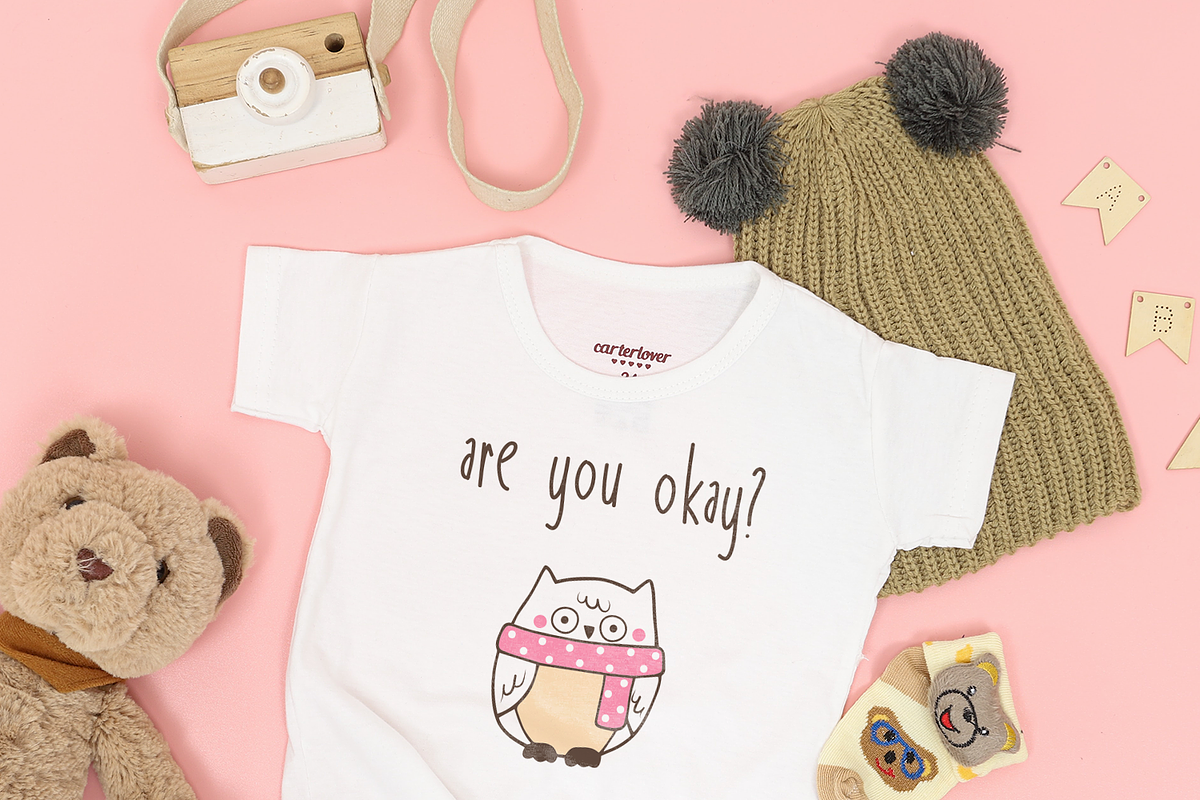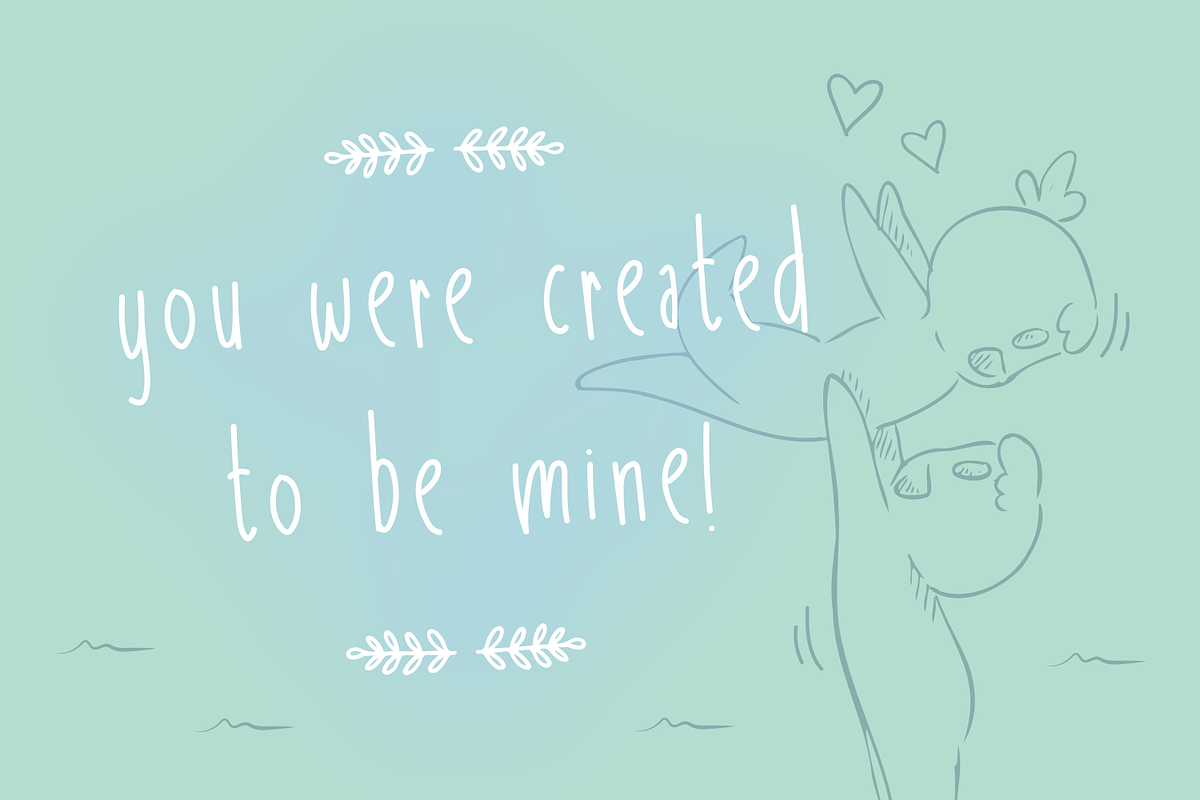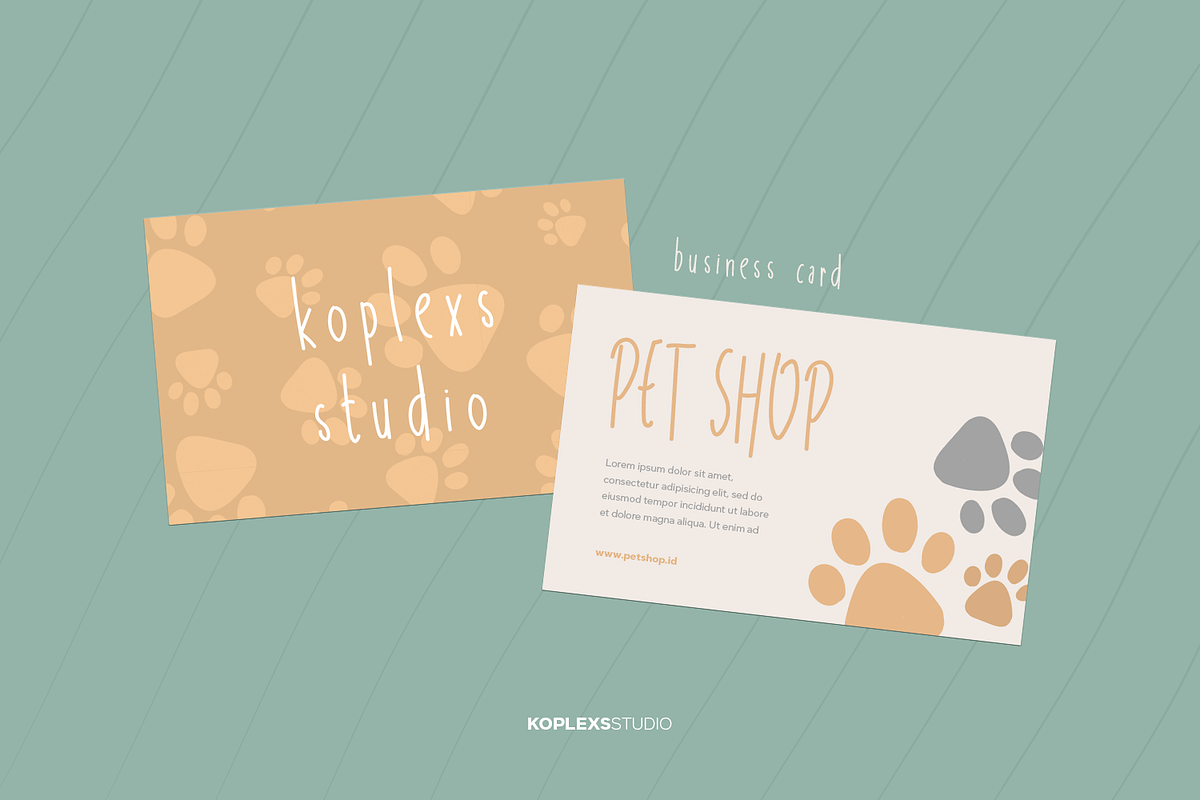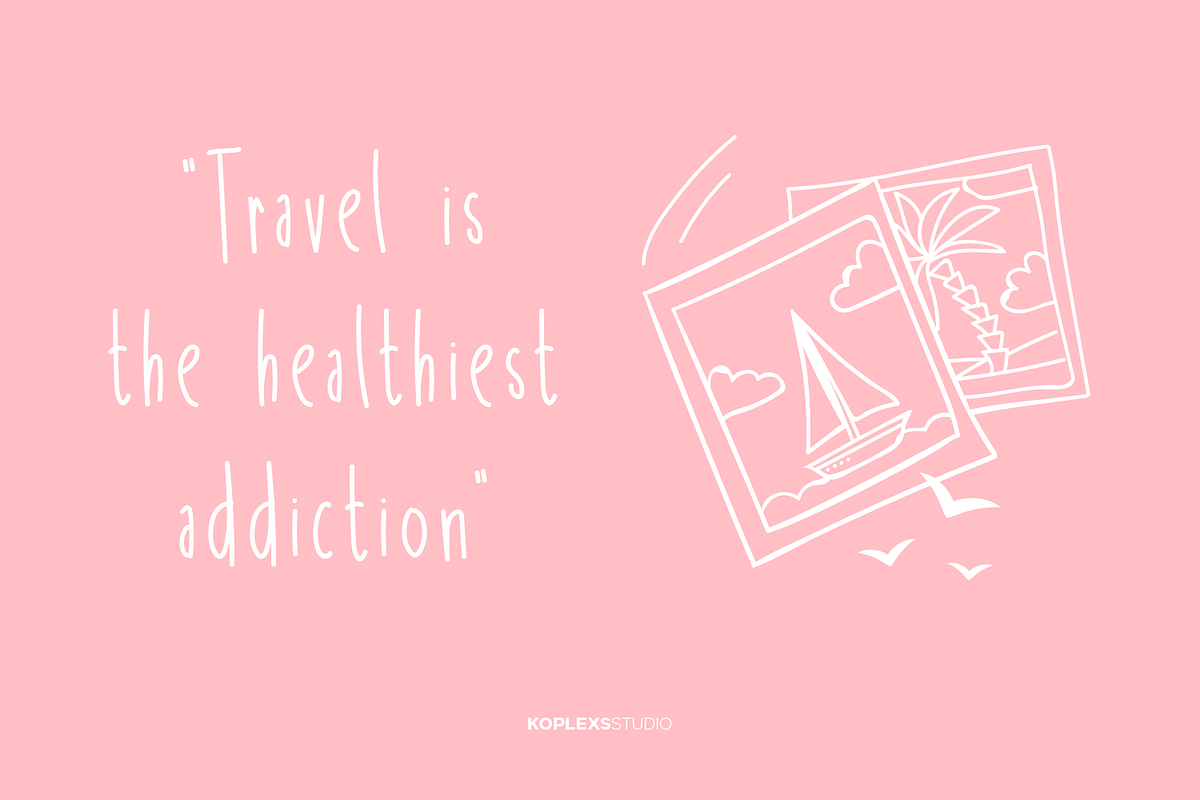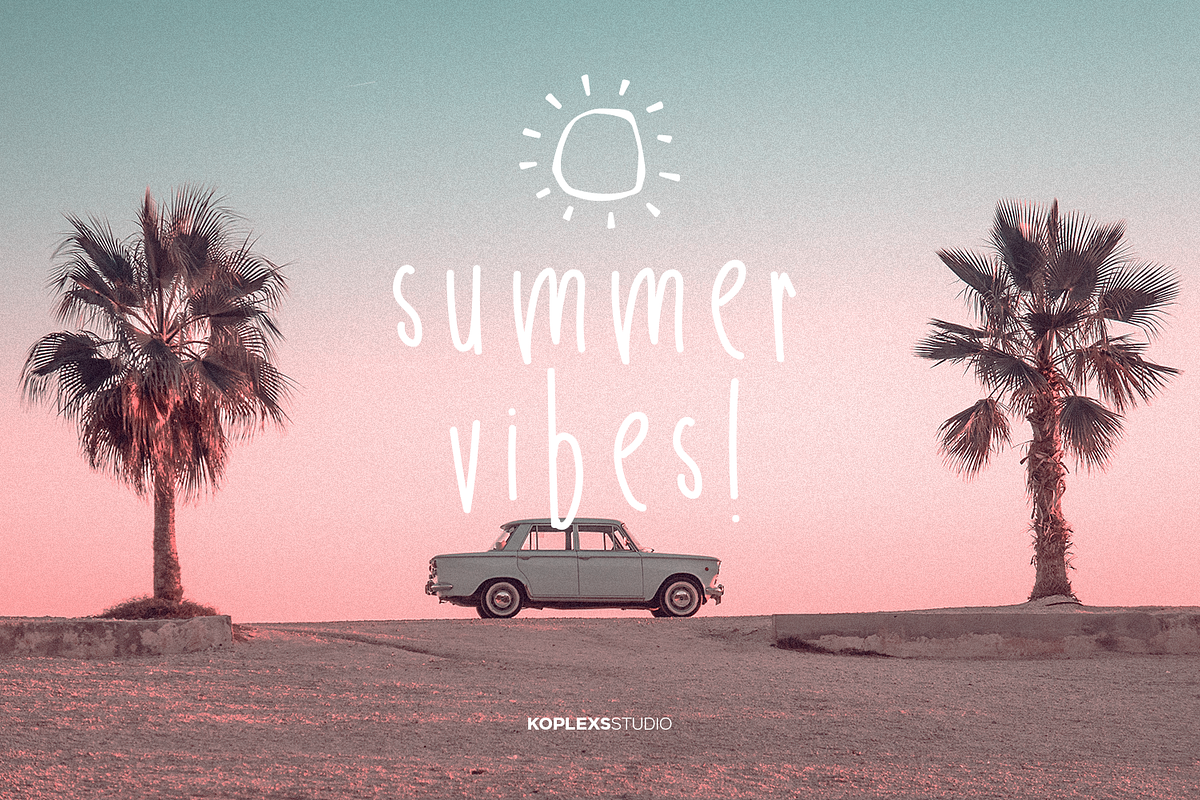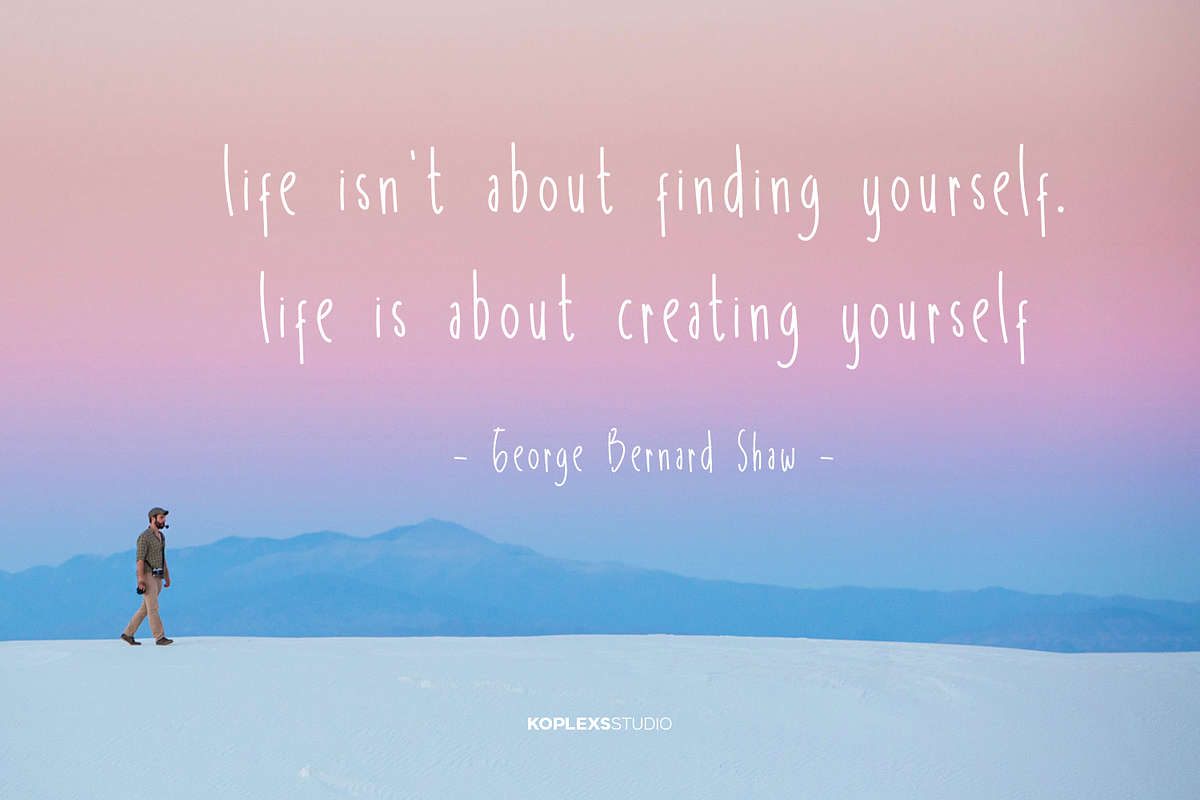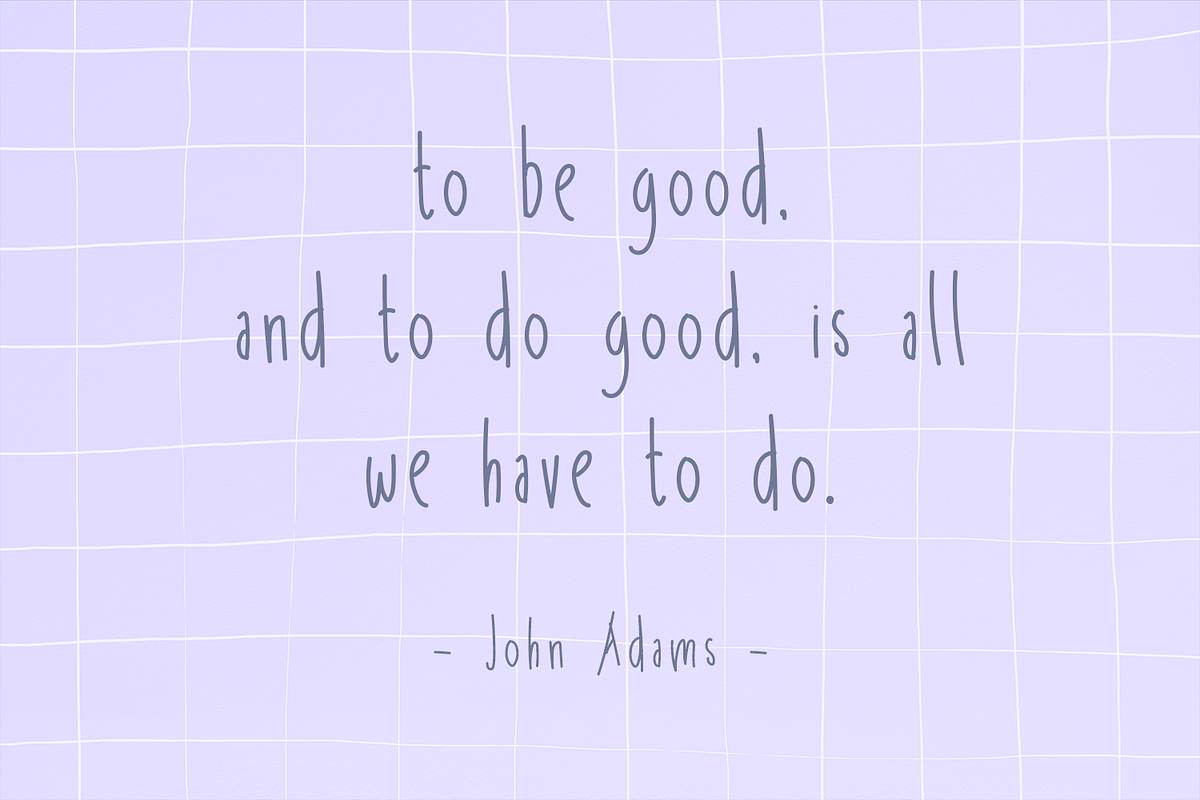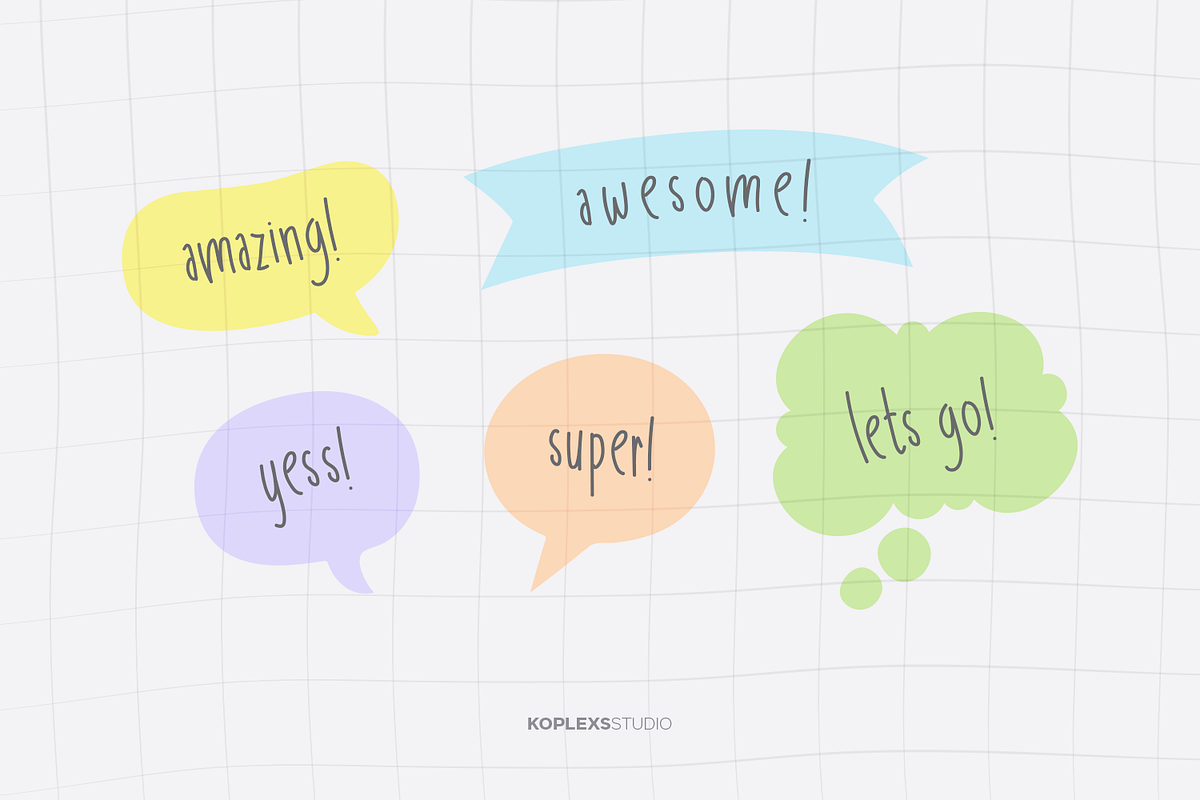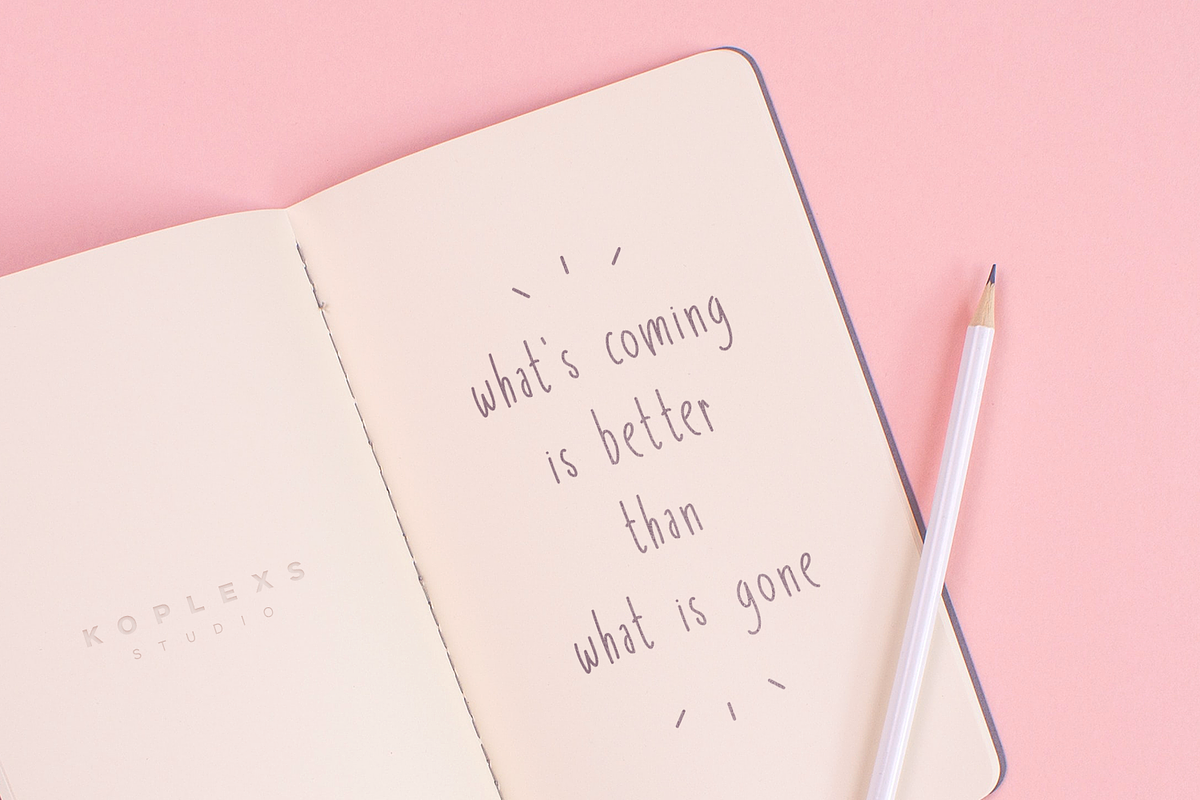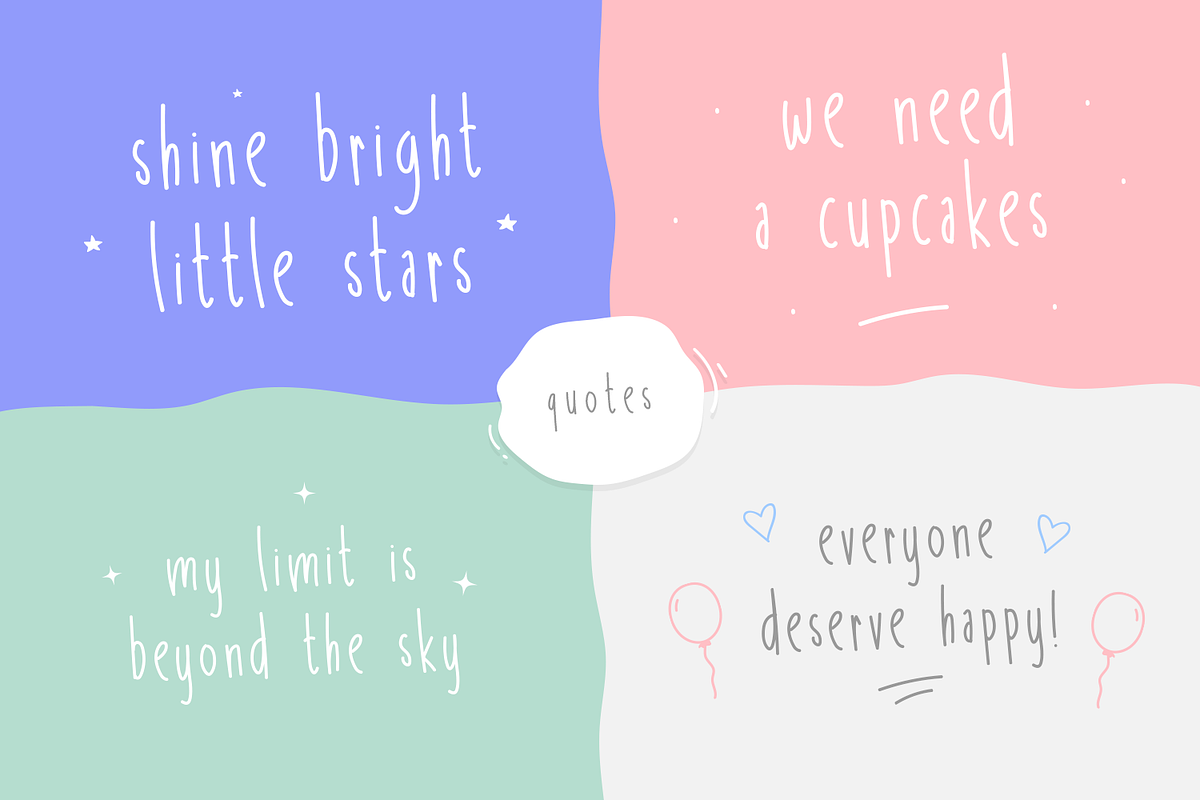
Wizard - A Fun Handwritten Font
Wizard is A Fun Handwritten Font
Wizard is a fun handwritten font that is made to bring out the happy, light-hearted character. Wizard is perfect for branding projects, logo,social media posts, advertisements, product packaging, product designs, label, photography, watermark, invitation, stationery and any projects that need handwriting taste,design & craft projects, quotes, home decor,blog header, branding, t-shirts, posters & more!
This font is super cute! It's a little "thin" compared to other fonts of the same size, but I find that works very well for me since I can squeeze a few more words than in other handwritten fonts.